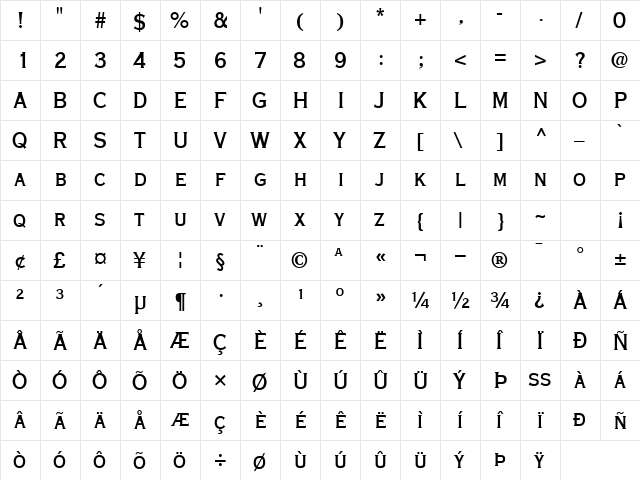
FontFever26 Regular
Design Context for FontFever26 Typeface
FontFever26 takes a measured approach to typography — its balanced proportions and neutral character make it a reliable workhorse for both digital and print work.